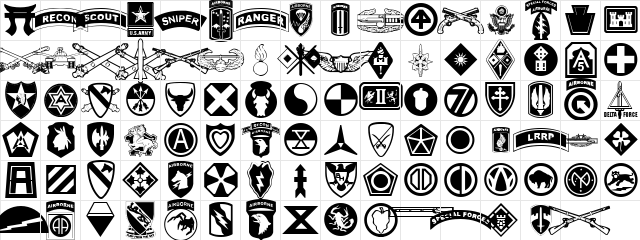
US Army II Regular
Design Context for US Army II Typeface
US Army II has the no-nonsense character of military stencilling and tactical signage, projecting authority and directness.
Designed for tactical branding, military-inspired apparel, action game UI, and utility-focused signage.
Pro Tip: Use US Army II at medium-to-large sizes where its utilitarian structure can be appreciated — the character detail gets lost at small sizes.